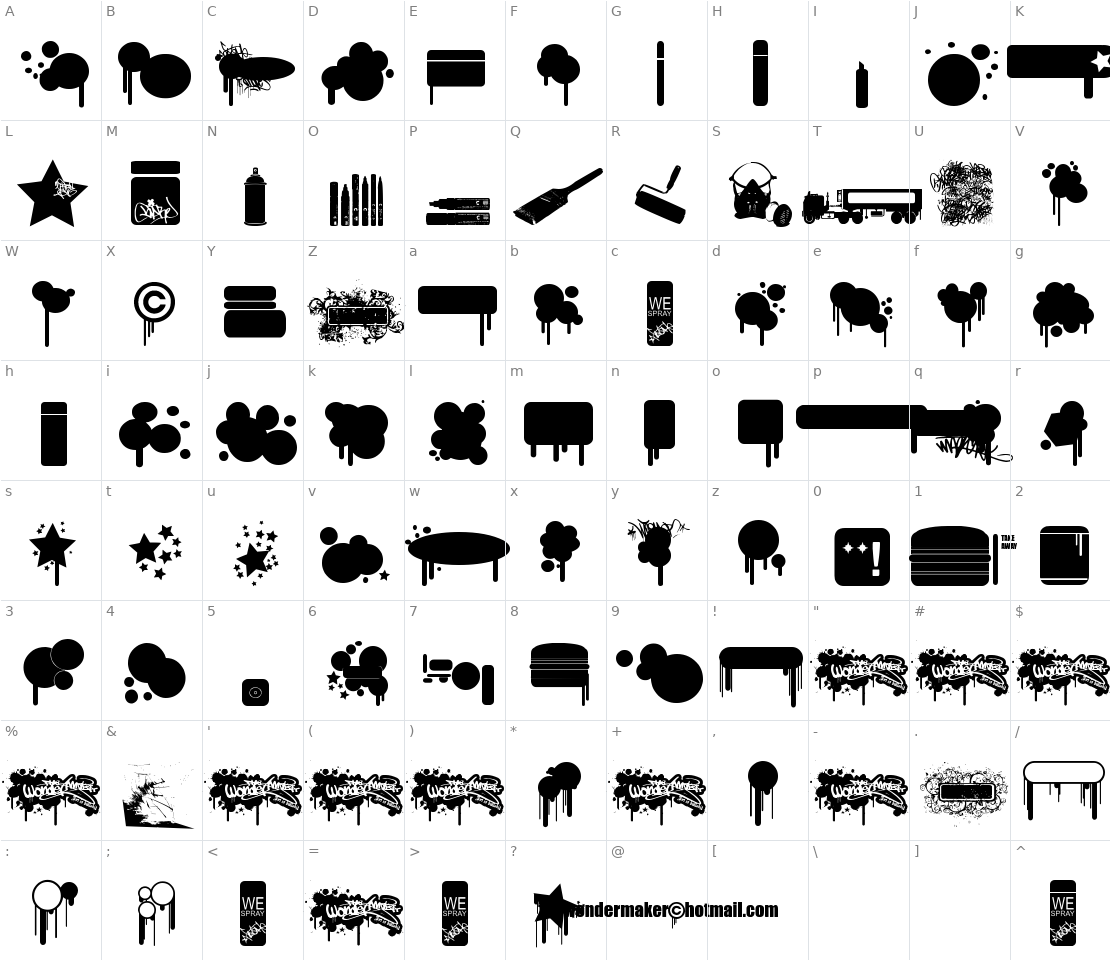
We Spray
We Spray is a dingbat font from The Wondermaker filled with graffiti-inspired symbols, silhouettes, and spray paint drips pulled straight from street art culture. Rather than letters, it offers a collection of urban graphic elements that work well as decorative accents, texture layers, or standalone visuals in posters, flyers, and editorial layouts with a raw, city-wall energy.